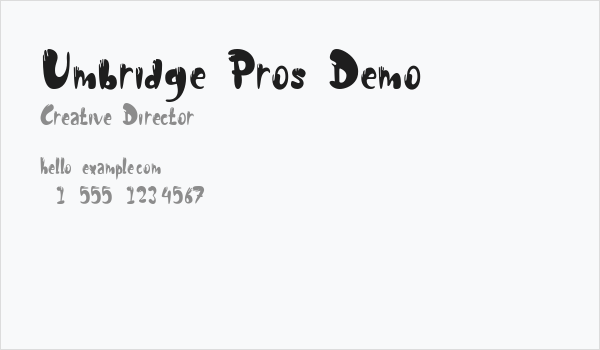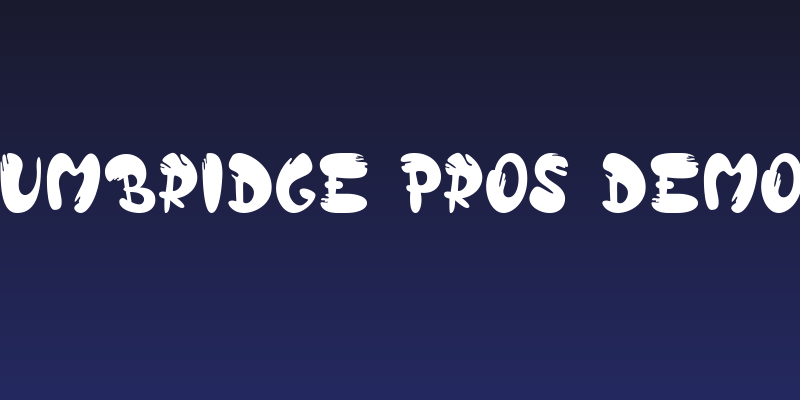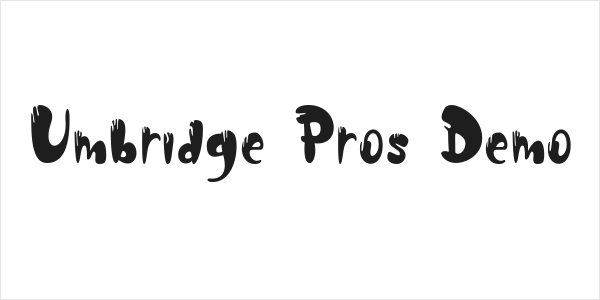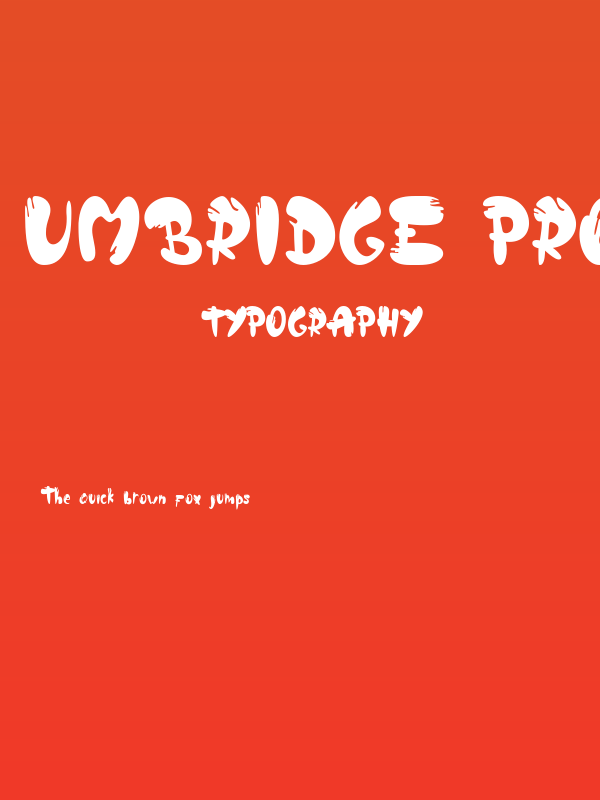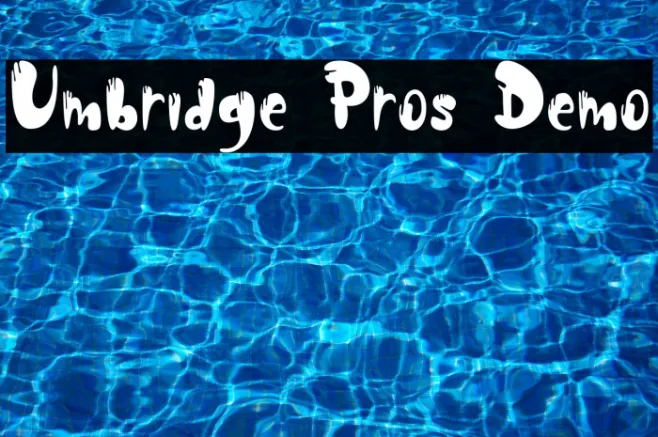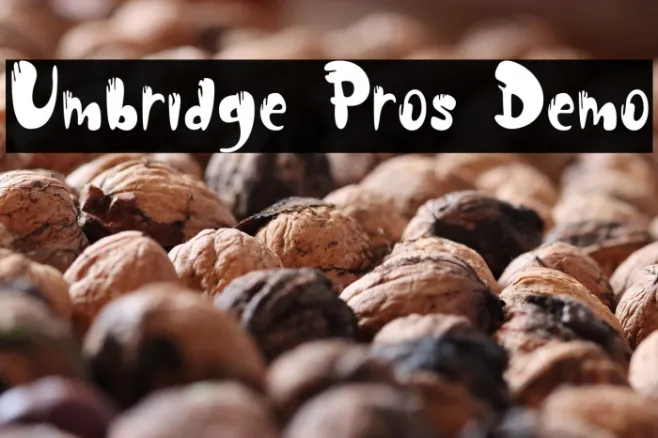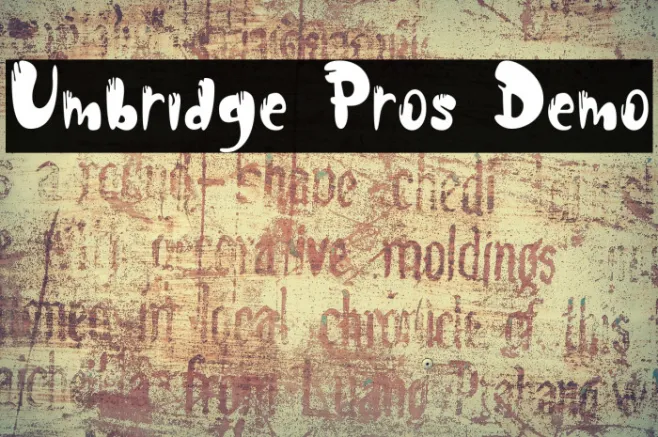
Umbridge Pros Demo Font
Umbridge Pros Demo Description
This font features a bold and expressive style, characterized by its thick, brush-like strokes that give it a dynamic and energetic appearance. The letters have a playful, almost whimsical quality, with irregular edges and varying stroke widths that create a sense of movement and fluidity. The uppercase and lowercase letters maintain a consistent design, with rounded forms and a slightly condensed structure. The numerals and special characters follow the same artistic theme, ensuring a cohesive look across all glyphs. This font is ideal for projects that require a strong visual impact and a touch of creativity.
| Proposed Projects | Ideal for posters, branding, headlines, and creative designs that need a bold statement. |